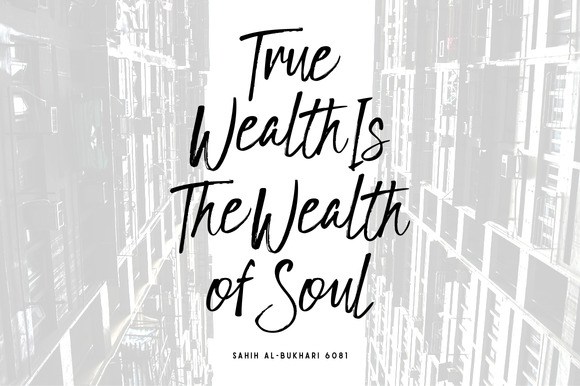
East Coast Script Font
East Coast is a script font, designed by amtypefoundry. East Coast Script Font is designed in the style of handwriting combined with brush, you will love this font, because it is very natural, you can use it for your design project.